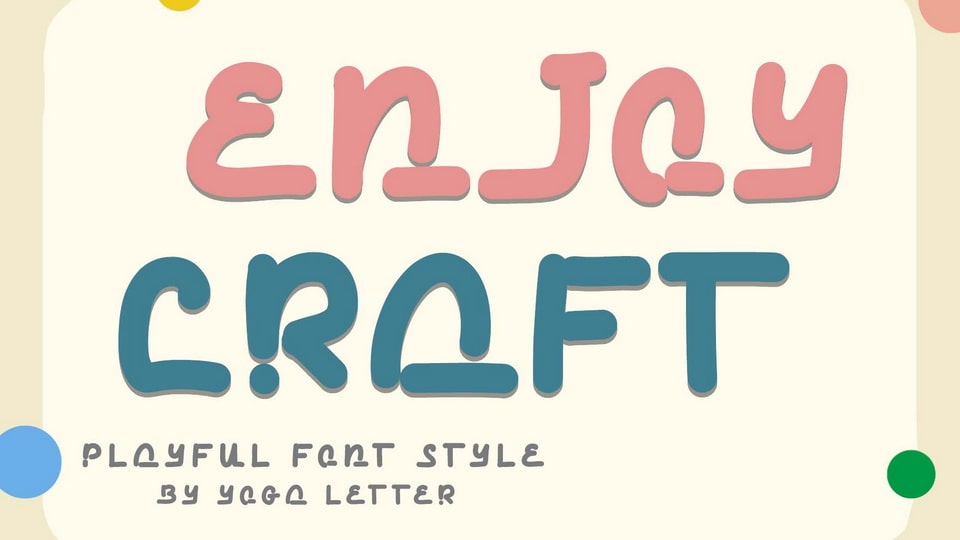
Download Enjoy Craft font, a unique and cute display typeface. This font is equipped with uppercase, lowercase, numerals, punctuations and multilingual support.